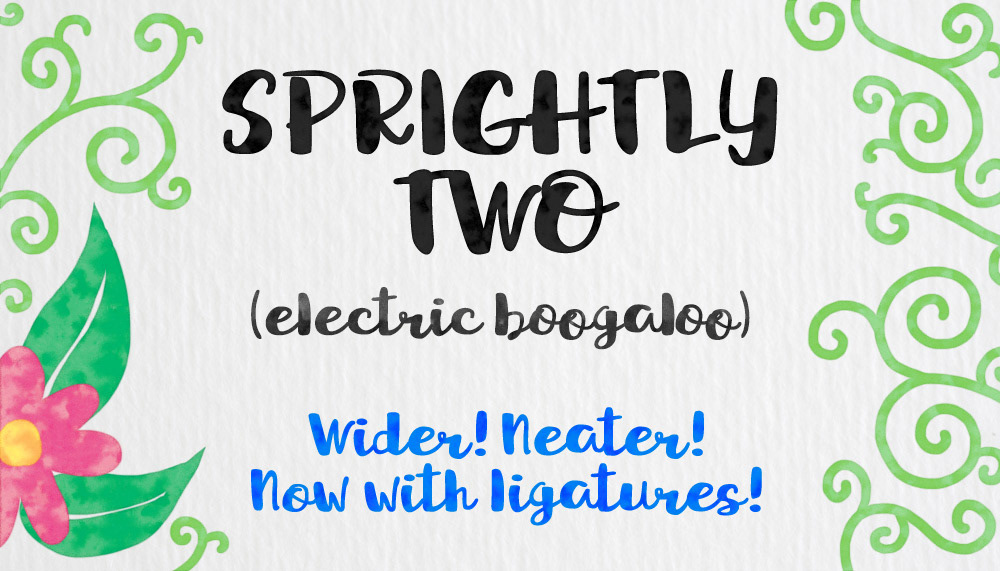
That’s right, I monkeyed around with Sprightly! Now 30% wider, so you can choose between tall and wide versions. A little more refined, with over three times as many kerned pairs. And because I like me some double-lowercase ligatures, Sprightly Two includes fifteen of those suckers!